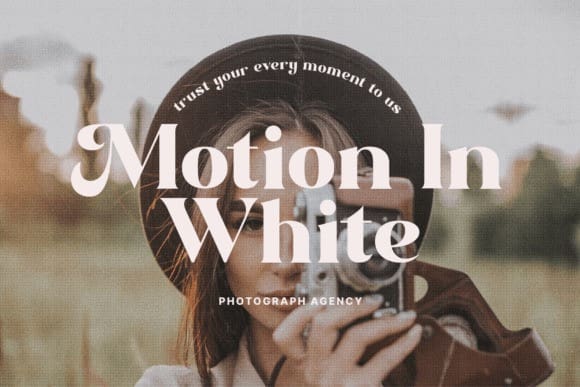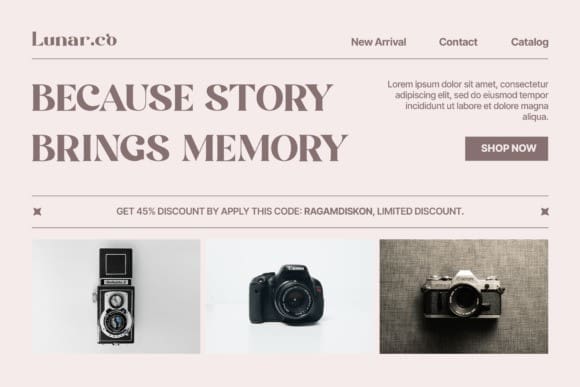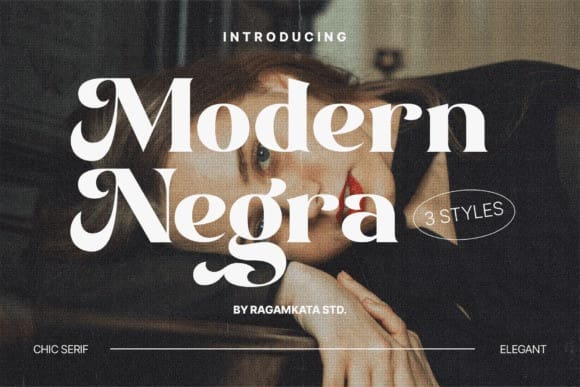
Modern Negra Font
Modern Negra Font is a Modern elegant serif typeface with Unique alternative , multilingual support with perfect kerning. This typeface is perfect for an elegant & luxury logo, classy editorial design, women’s magazine, fashion brand , cosmetic brand, fashion promotion , modern advertising design, invitation card, art quote, home decoration , book/cover titles, special events, Tote bag, T-shirt, Advertising and much more.